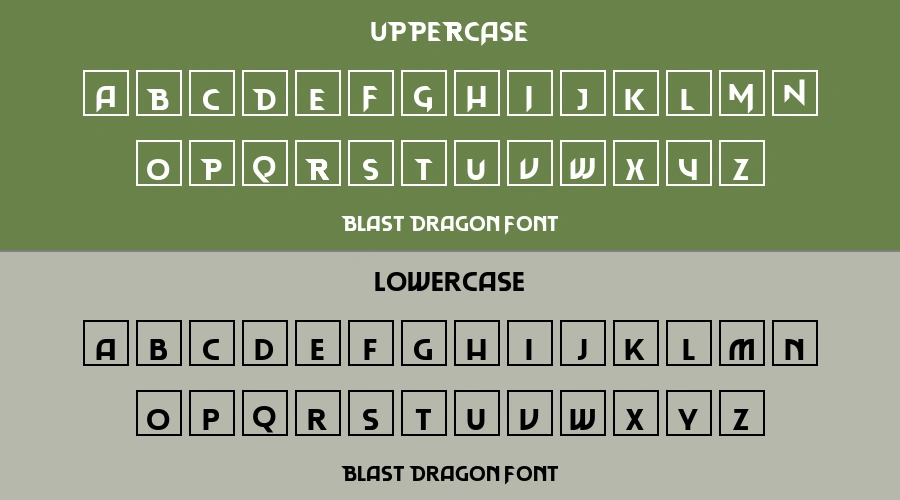
About Blast Dragon Font
Designed with precision, Blast Dragon Font merges refined proportions with integrity in every character. This versatility makes it particularly effective for engineering drawings, where tradition and market appeal directly impact communication quality. Each letterform demonstrates meticulous craftsmanship.
Technical excellence shines through elements like geometric precision and ordinals, enhancing typographic versatility. In editorial spreads settings, Blast Dragon Font proves its worth through superior detail preservation. The thoughtful execution of corner treatment and historical reference ensures professional results.